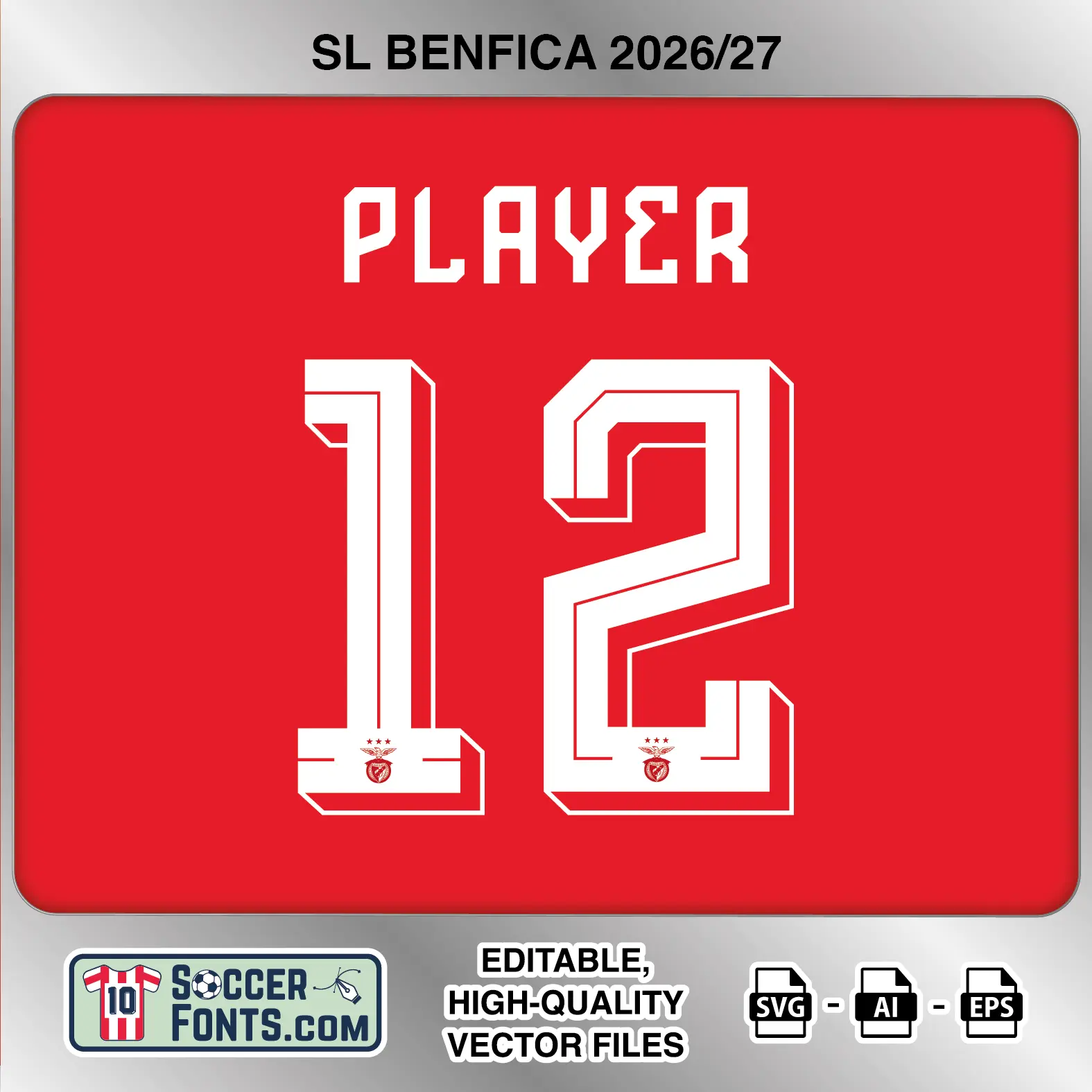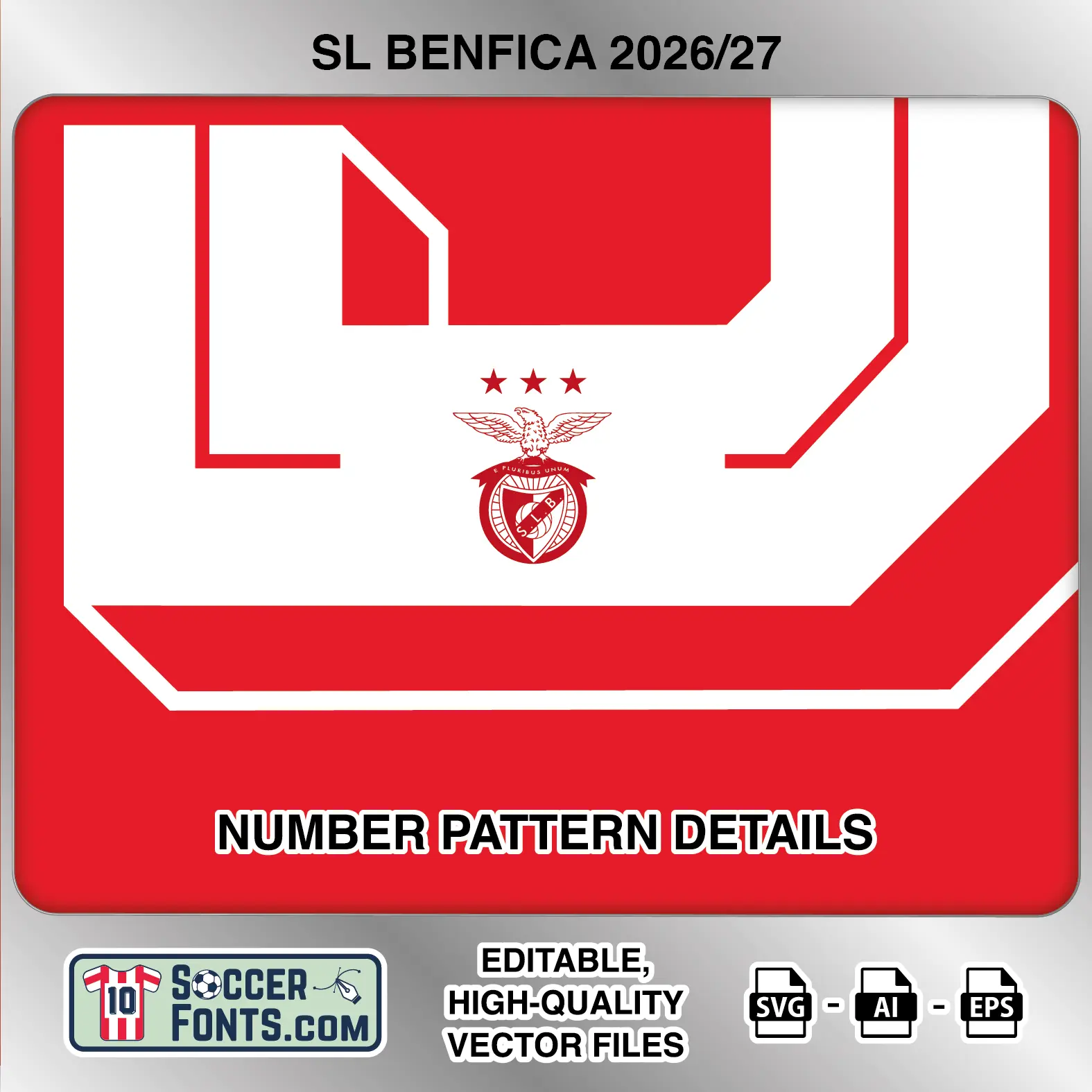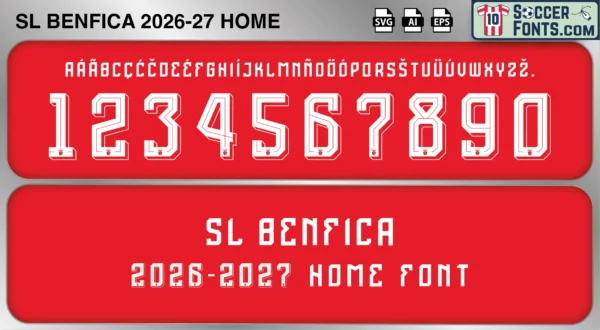
Benfica 2026-27 Font Home
The Benfica 2026-27 Font Home is specifically associated with the official lettering system used on Benfica’s home shirt during the 2026-27 season. Unlike previous campaigns, Benfica utilizes separate typography designs for its home and away kits, giving each shirt its own distinctive visual identity. The Benfica 2026-27 Font Home represents the official lettering worn on the club’s traditional red home kit throughout the season and serves as an accurate reference for authentic jersey recreations. Benfica home shirts from this campaign are expected to remain highly desirable among football shirt collectors, sports designers and supporters celebrating another chapter in the club’s remarkable football history.
Benfica 2026-27 home football shirt font showing alphabet letters and jersey numbers